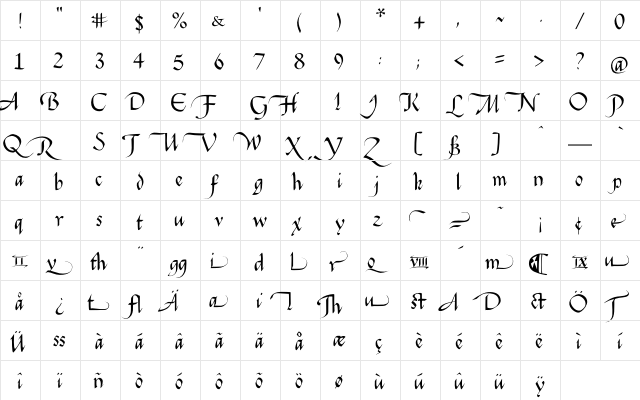
FlourishSpecial Regular Font Preview
FlourishSpecial Regular
FlourishSpecial Regular Font Details
Design Context for FlourishSpecial Typeface
FlourishSpecial is a composed and adaptable typeface that performs quietly and consistently across a wide range of design contexts.